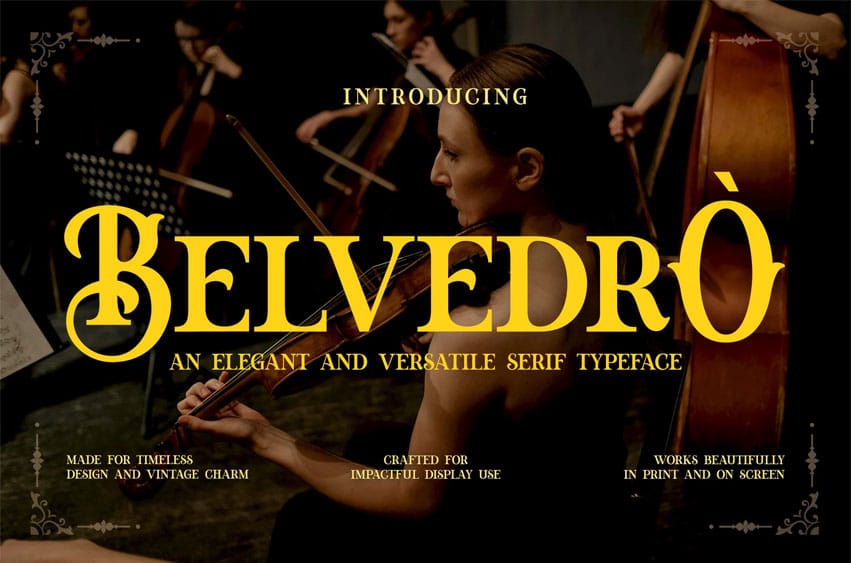
Belvedro Font is an elegant serif typeface that blends vintage charm with timeless sophistication. Designed with intricate letterforms and refined curves, this versatile font is perfect for classical music posters, luxury branding, editorial layouts, restaurant identities, and historical-themed projects. Belvedro’s artistic flair and full multilingual support make it a strong choice for any designer aiming for classic elegance and expressive typography.